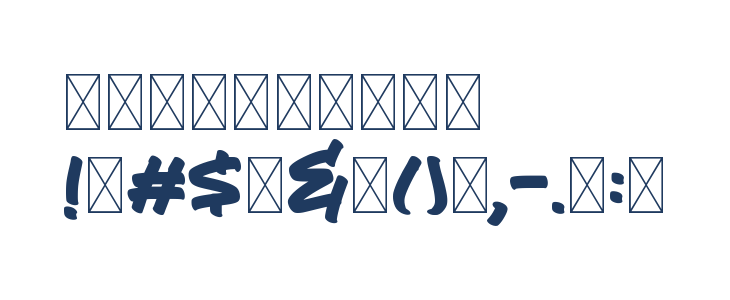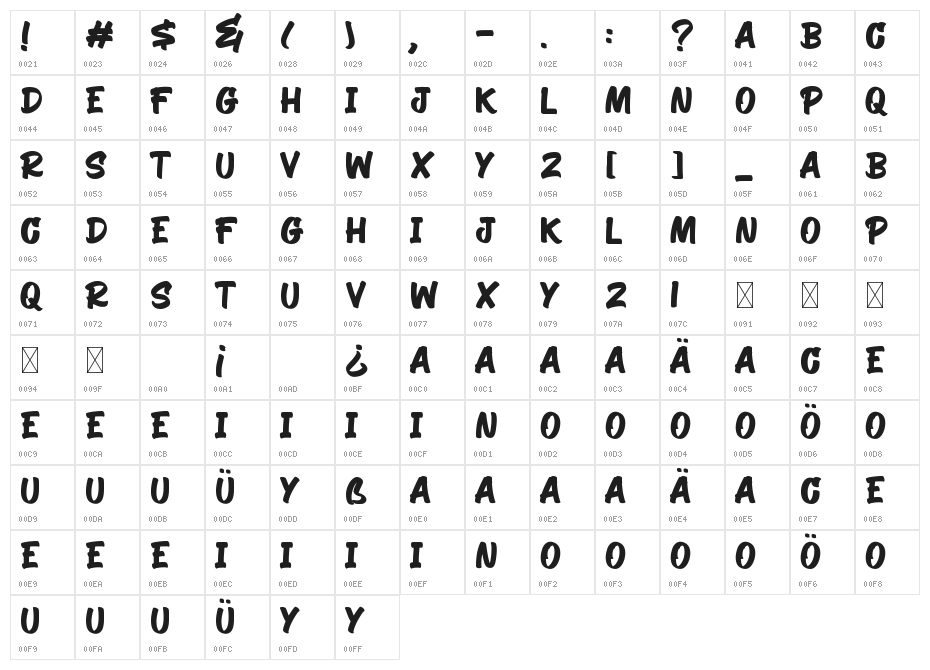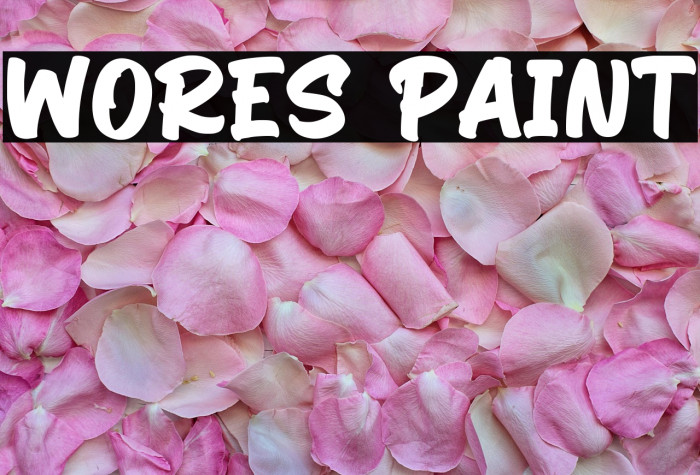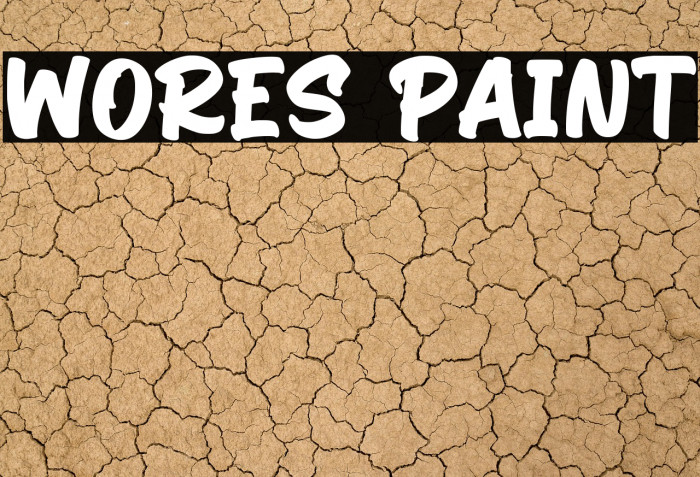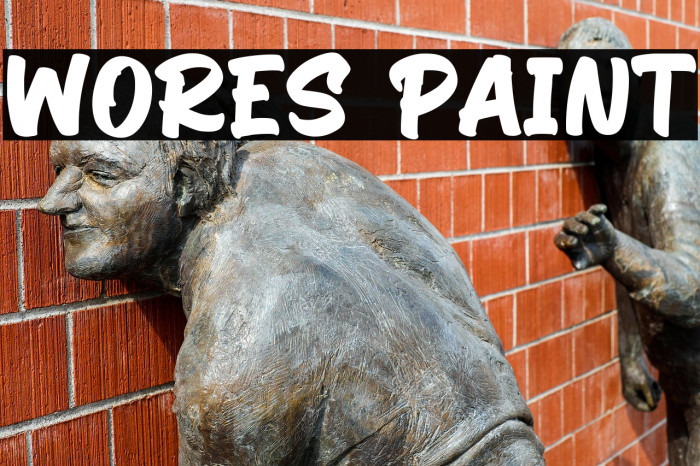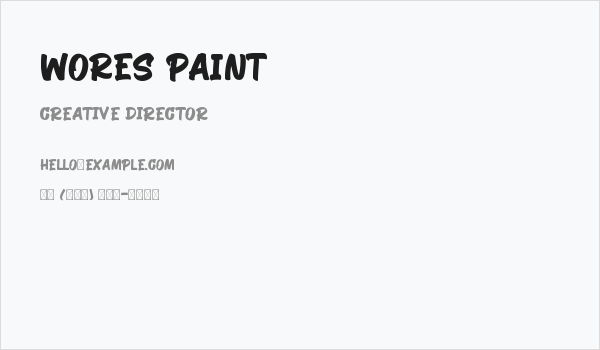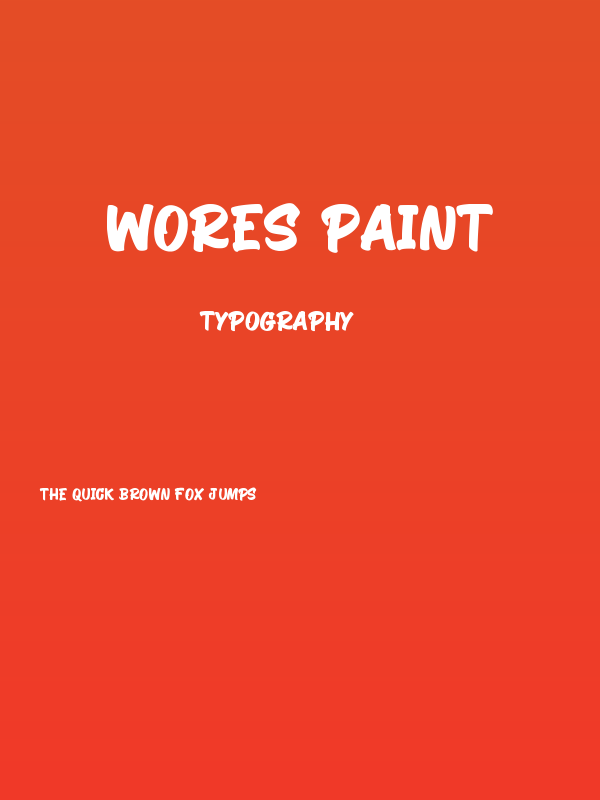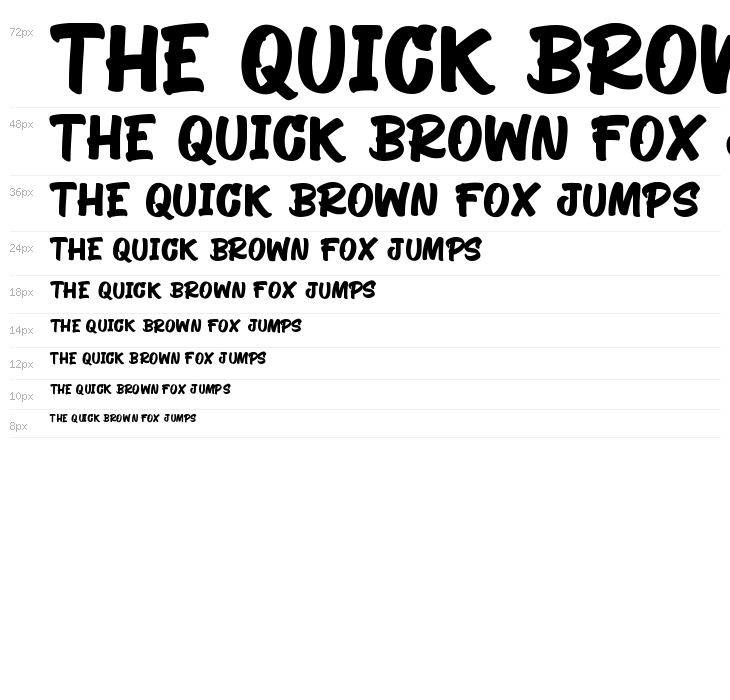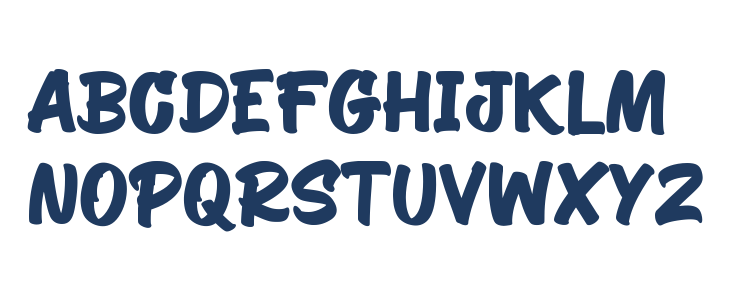
Wores Paint Font
Wores Paint Description
This font features a bold, brush-like style that exudes a sense of energy and movement. The characters are crafted with a hand-painted appearance, giving them a unique and artistic flair. Each letter is slightly irregular, adding to the font's dynamic and lively character. The strokes are thick and rounded, contributing to a friendly and approachable look. The uppercase and lowercase letters maintain a consistent style, while the numbers and special characters are equally expressive, ensuring a cohesive design throughout. This font is ideal for projects that require a personal touch or a creative, informal vibe.
Proposed ProjectsIdeal for posters, branding, packaging, and creative projects that require a lively and artistic touch.